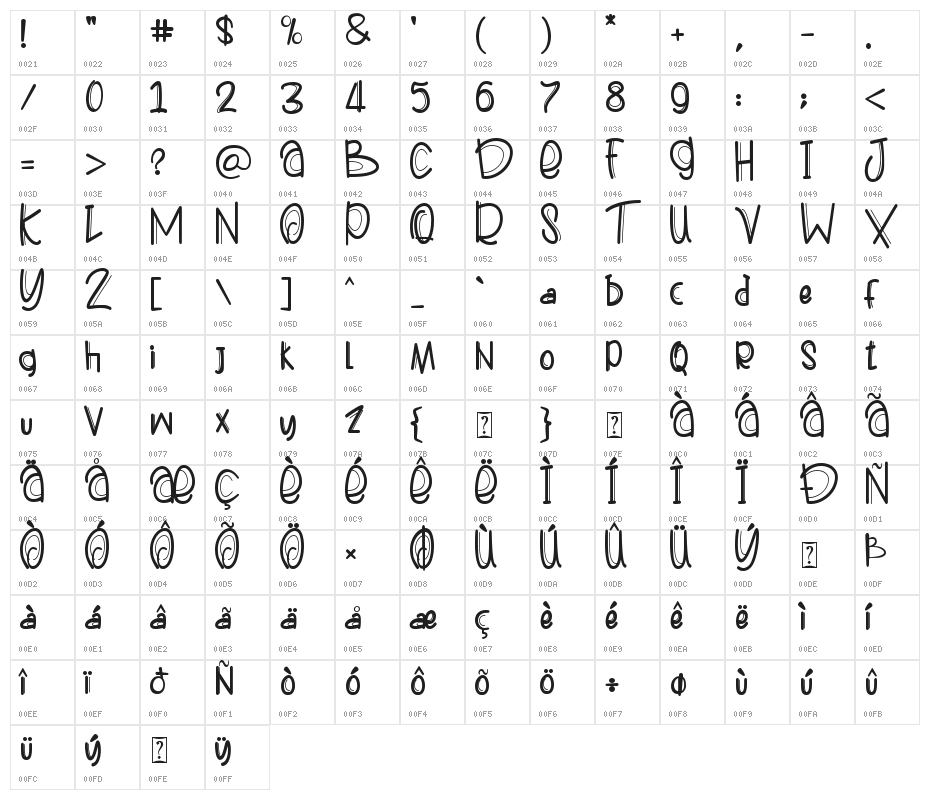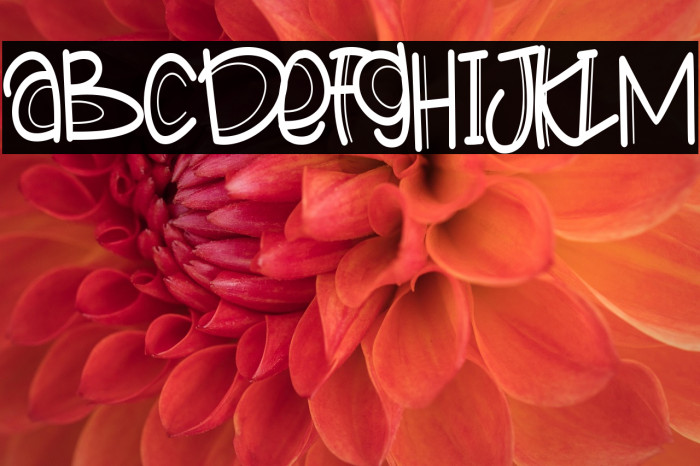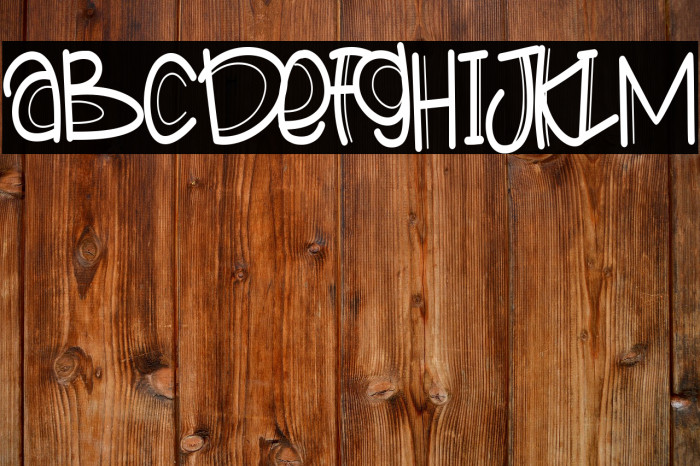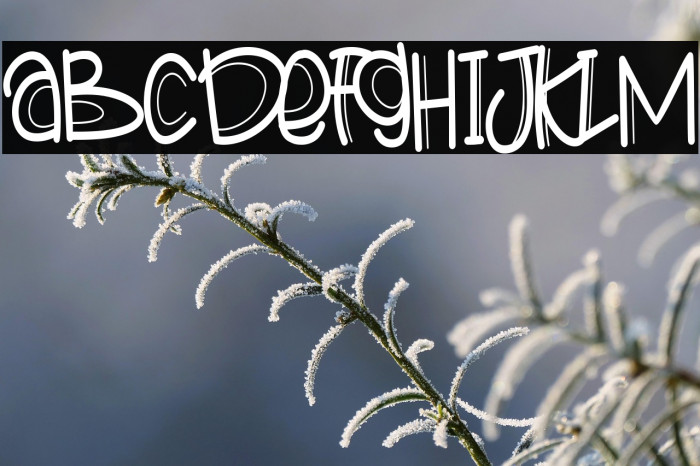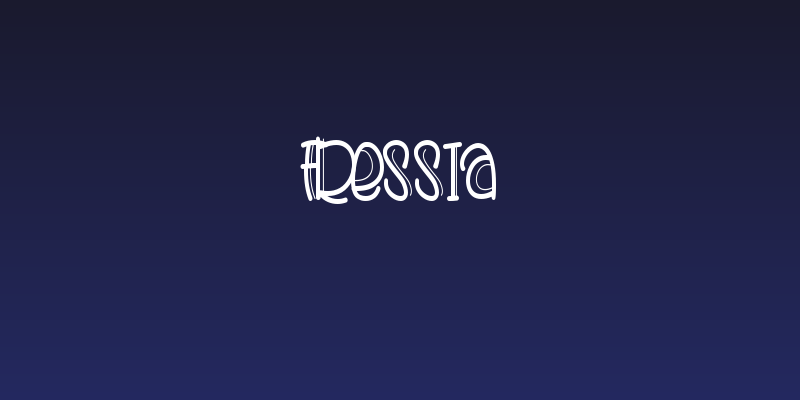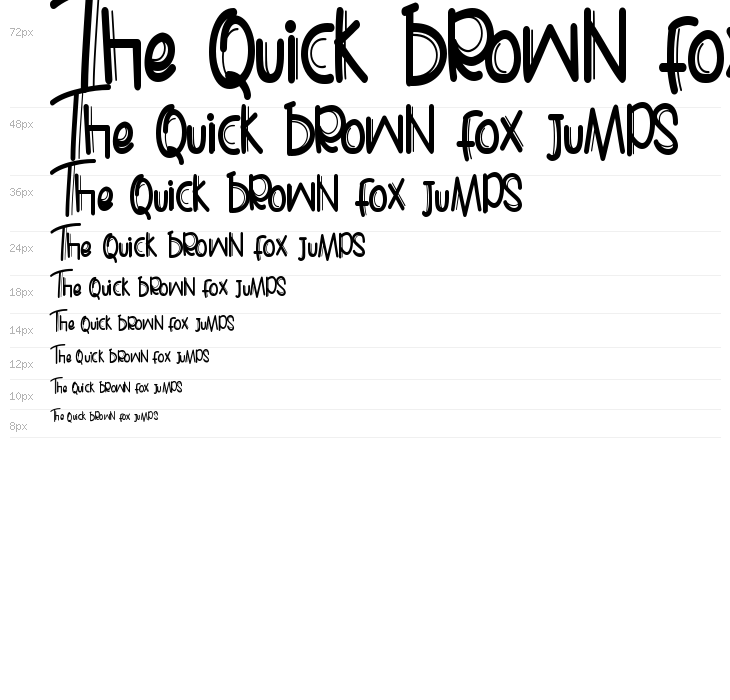
Fressia Font
Fressia Description
This font features a playful and energetic style with a hand-drawn appearance. The letters are bold and rounded, with a slightly irregular baseline that adds to its casual charm. The uppercase and lowercase characters are distinct, with the uppercase letters being taller and more prominent. Numbers and special characters maintain the same whimsical style, making them easily recognizable. The font's overall look is informal and friendly, perfect for projects that require a touch of personality and creativity.
| Proposed Projects | Ideal for children's books, greeting cards, playful branding, and social media graphics. |